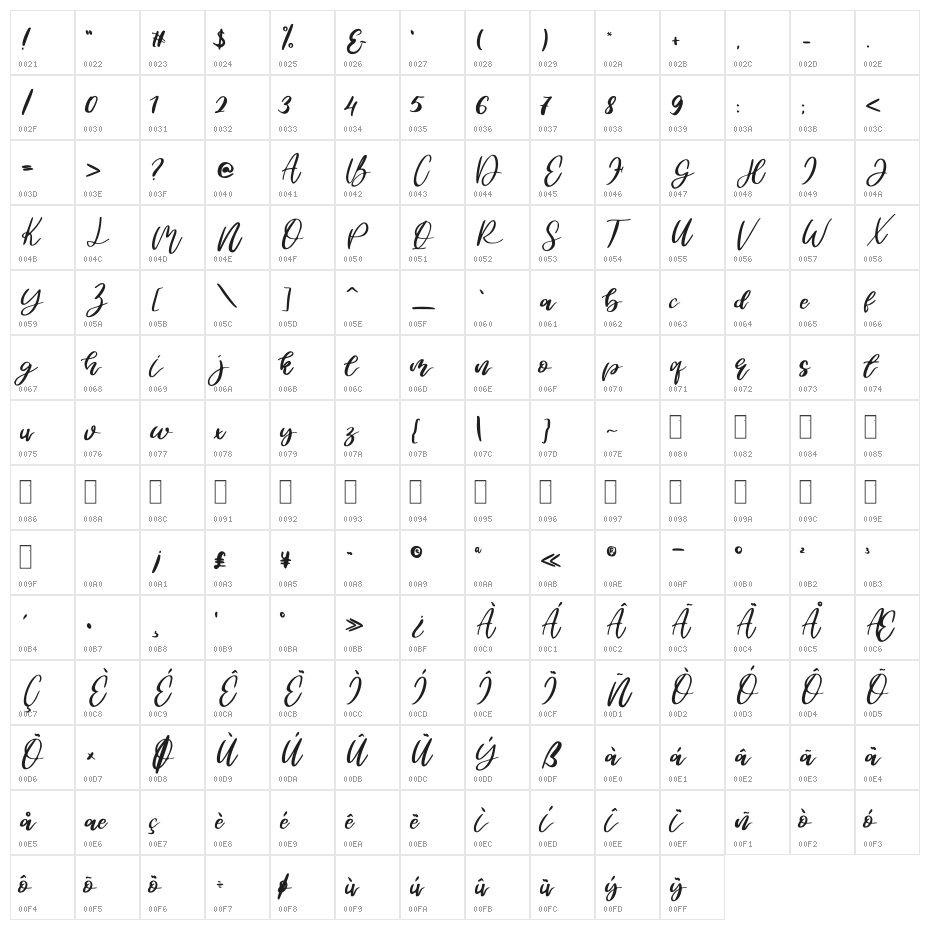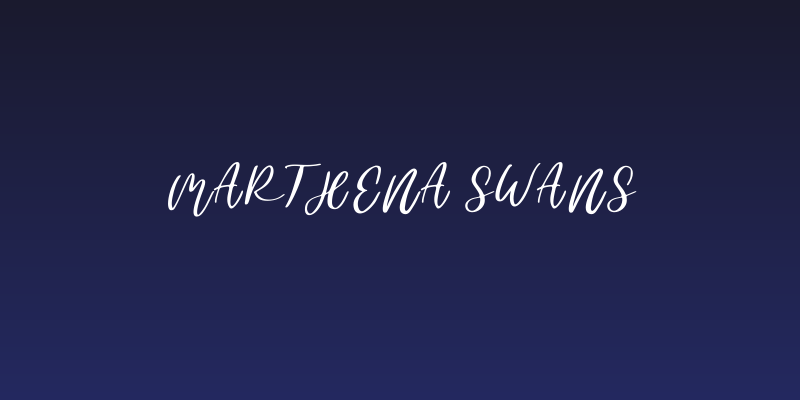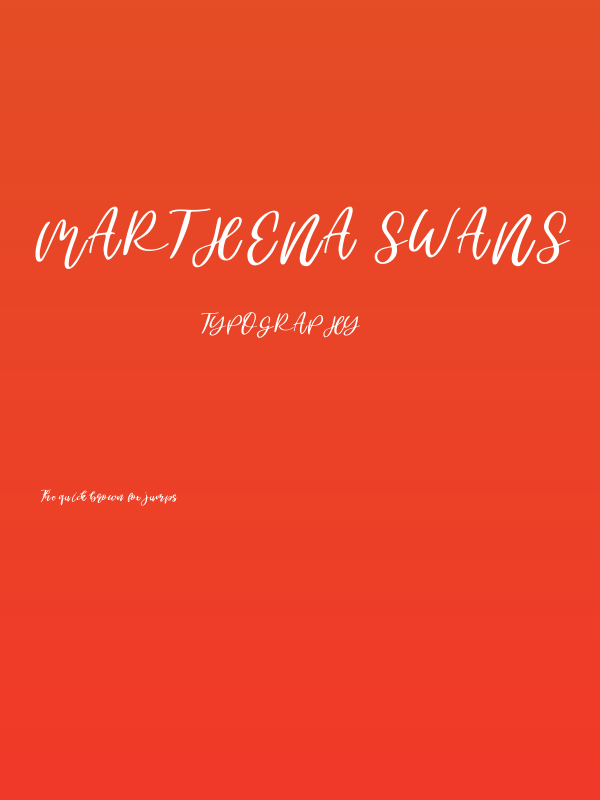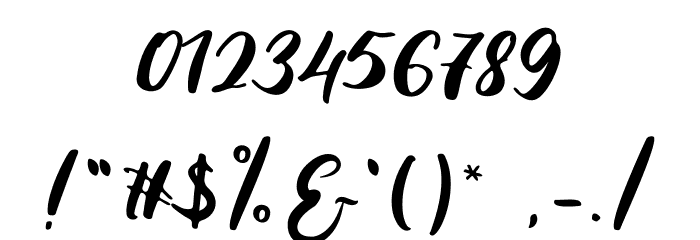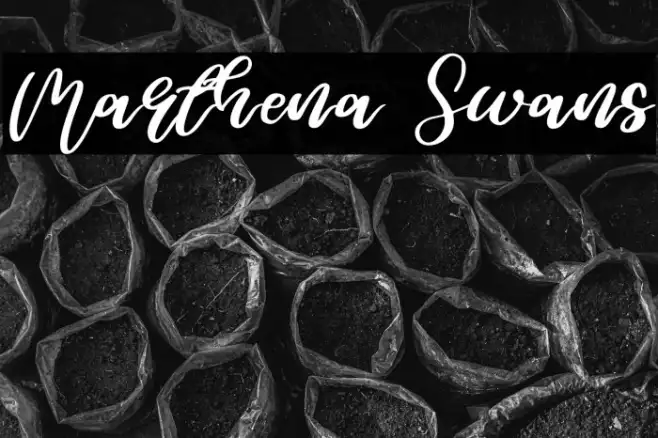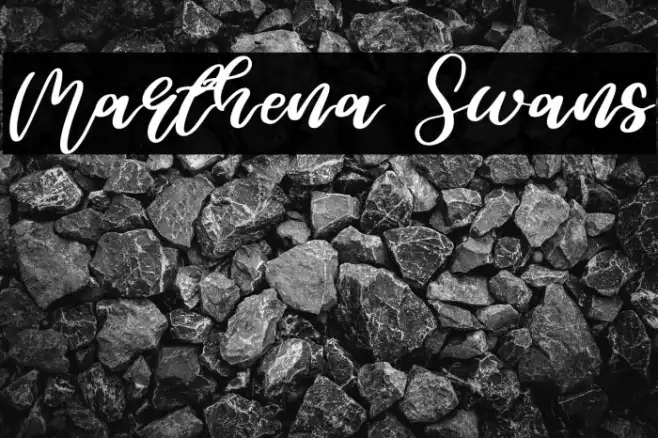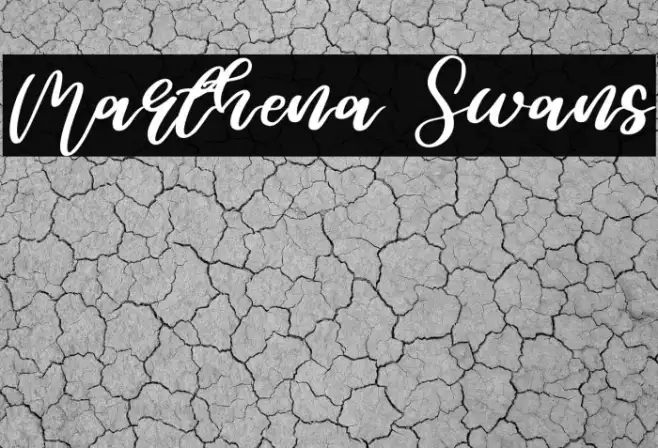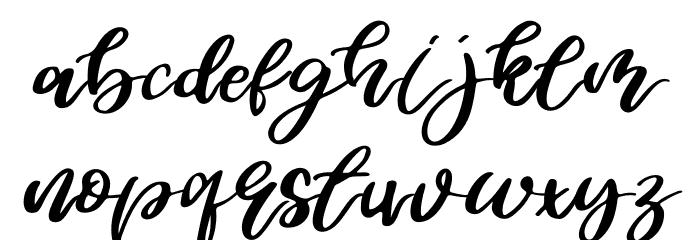
Marthena Swans Font
Marthena Swans Description
This font exudes a sense of elegance and fluidity, characterized by its script style that mimics the natural flow of handwriting. The letters are connected in a smooth, cursive manner, with each character exhibiting a graceful curve and flourish. The uppercase letters are slightly more ornate, providing a sophisticated touch, while the lowercase letters maintain a consistent rhythm and flow. The numbers and special characters are designed to complement the overall aesthetic, ensuring a cohesive look across all elements. The font's bold weight adds a striking presence, making it suitable for designs that require a touch of elegance and personality.
| Proposed Projects | Ideal for wedding invitations, branding, greeting cards, and elegant packaging designs. |